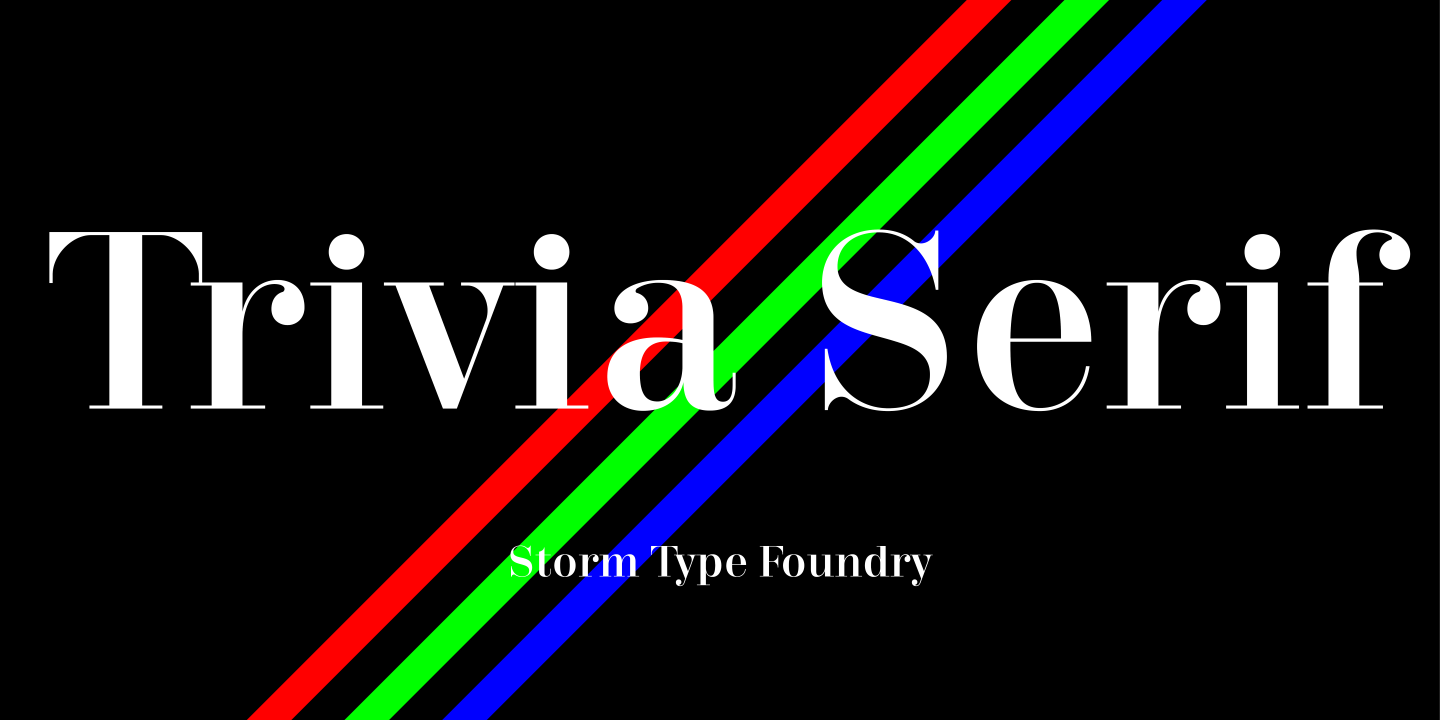
Trivia Serif Font is perfect for quiz show graphics, educational game interfaces, knowledge-based app design, trivia night posters, learning platform branding, encyclopedia layouts, and intellectual entertainment marketing that requires approachable, scholarly typography.
This font is exciting because it combines academic authority with playful accessibility, featuring friendly serif letterforms that convey knowledge and intelligence while maintaining engaging readability for educational entertainment and learning applications.
The Trivia Serif Font family includes light, regular, and bold weights with question mark variants, offering uppercase and lowercase letters, educational symbols, quiz numerals, punctuation marks, and intellectual ornaments designed for knowledge-based applications.
Educational designers consistently choose Trivia Serif Font Free Download for projects requiring scholarly credibility with approachable personality. This engaging typeface transforms educational content into compelling learning experiences that immediately connect with audiences seeking both entertainment and intellectual growth. The font's balanced character makes it exceptionally effective for educational technology companies, quiz platforms, and learning institutions where knowledge must be presented as both authoritative and accessible. Its scholarly yet friendly nature bridges academic rigor with popular education, making it invaluable for brands operating in edutainment and knowledge-sharing industries. The carefully crafted letterforms maintain their intellectual appeal across digital learning platforms and printed educational materials, ensuring consistent brand recognition and educational engagement. Whether you're developing quiz show applications, creating educational game interfaces, or designing learning platform materials, this typeface provides the authentic voice and visual intelligence that distinguishes serious educational content from superficial entertainment, establishing immediate credibility among learners who appreciate both intellectual depth and engaging presentation in their educational experiences and knowledge-building activities.